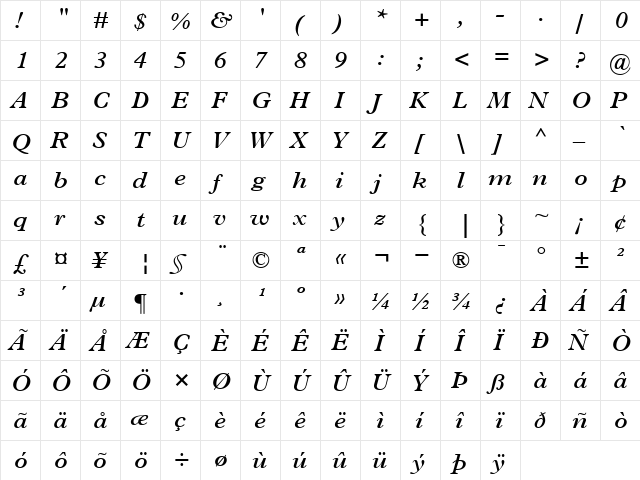
Plantin-SemiBold Semi BoldItalic
Design Context for Plantin-SemiBold Typeface
Plantin-SemiBold takes a measured approach to typography — its balanced proportions and neutral character make it a reliable workhorse for both digital and print work. Its italic angle brings a sense of urgency and motion to the letterforms. The heavy weight commands attention and anchors typographic hierarchies.